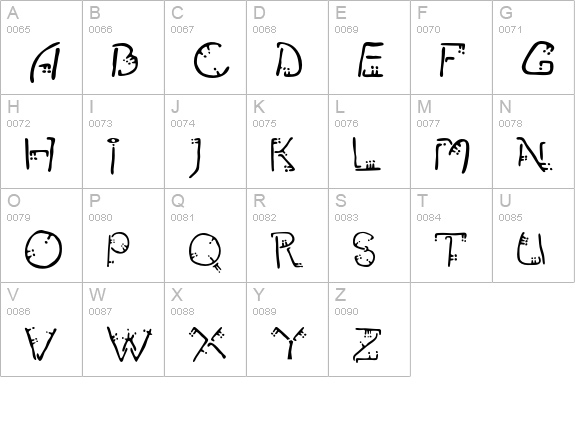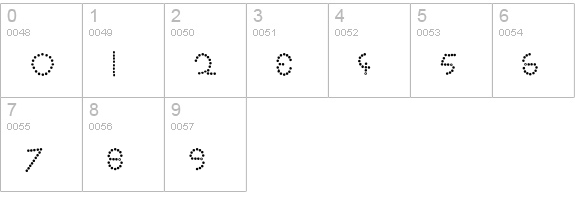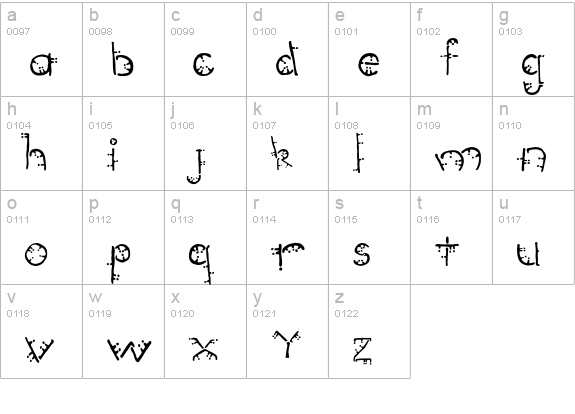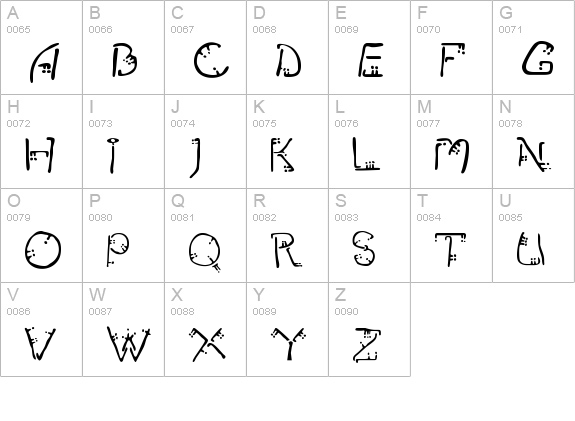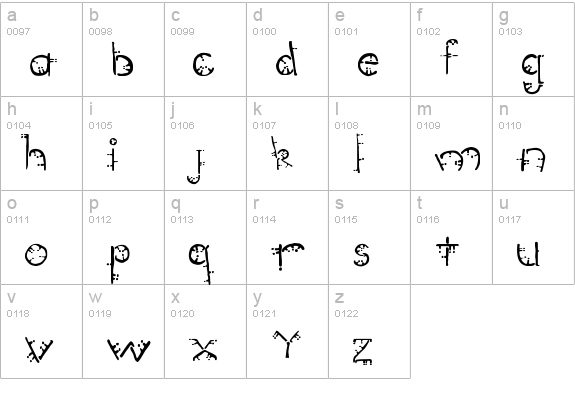
Stylophonia Font Details
Stylophonia font is a beautifully crafted typeface that effortlessly combines elegance with modernity. With its sleek lines and stylish curves, this font is perfect for adding a touch of sophistication to any design project. Whether you're creating a logo, poster, or website, Stylophonia font will make your text stand out and leave a lasting impression. The best part is that Stylophonia font is completely free to download at FontsMarket.com. This means you can add this stunning font to your collection without any cost, making it a valuable resource for designers and creatives looking to elevate their work. Don't miss out on the opportunity to enhance your projects with the timeless charm of Stylophonia font - download it today and start creating!